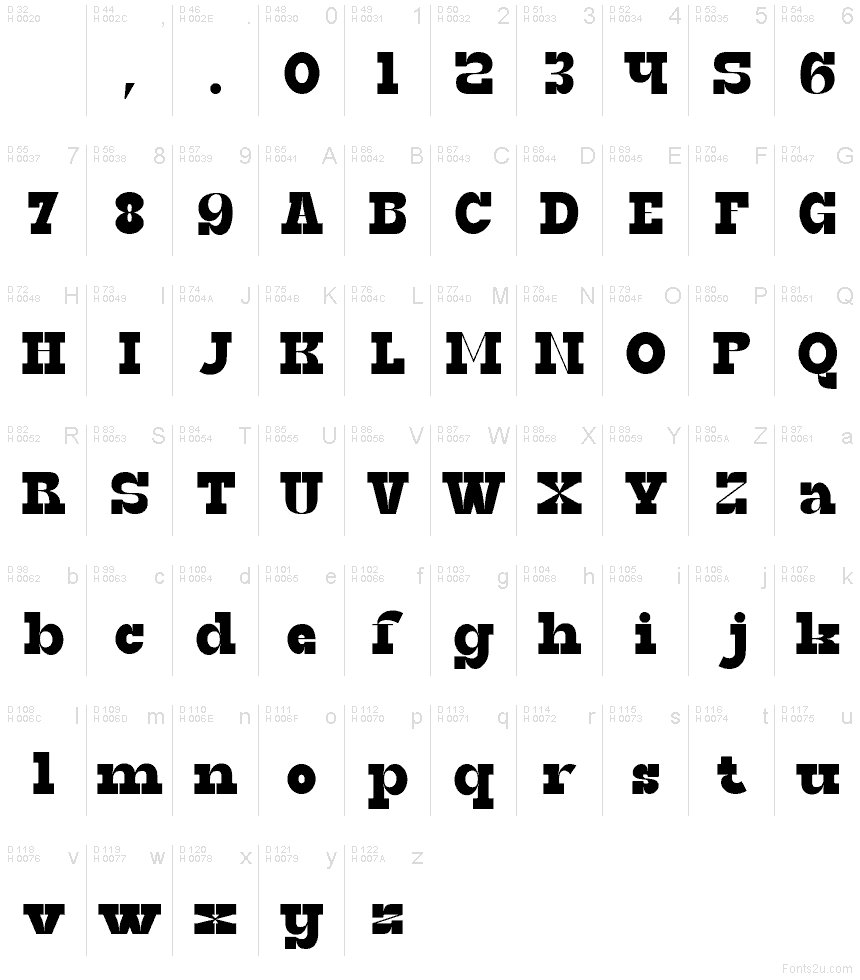
Gosmic Inkwell Regular
Gosmic Inkwell font by Muksal Creative is a free bold decorative slab serif font. Built around chunky slabs and carved ink-trap scoops, it has a tactile, wood-type heft with quirky negative cuts that keep the letters breathing. The rhythm feels punchy yet controlled—thick stems, crisp joins, and compact spacing that snaps headlines to attention without turning clumsy.
Using Gosmic Inkwell, you get a headline face that shines on posters, craft packaging, book covers, café menus, music promos, and vintage-flavored logos. Those sculpted counters create high contrast that reads fast at large sizes while staying graphic at a glance. For a clean balance, pair this free font with a light geometric sans and add a touch of tracking at oversized display scales.